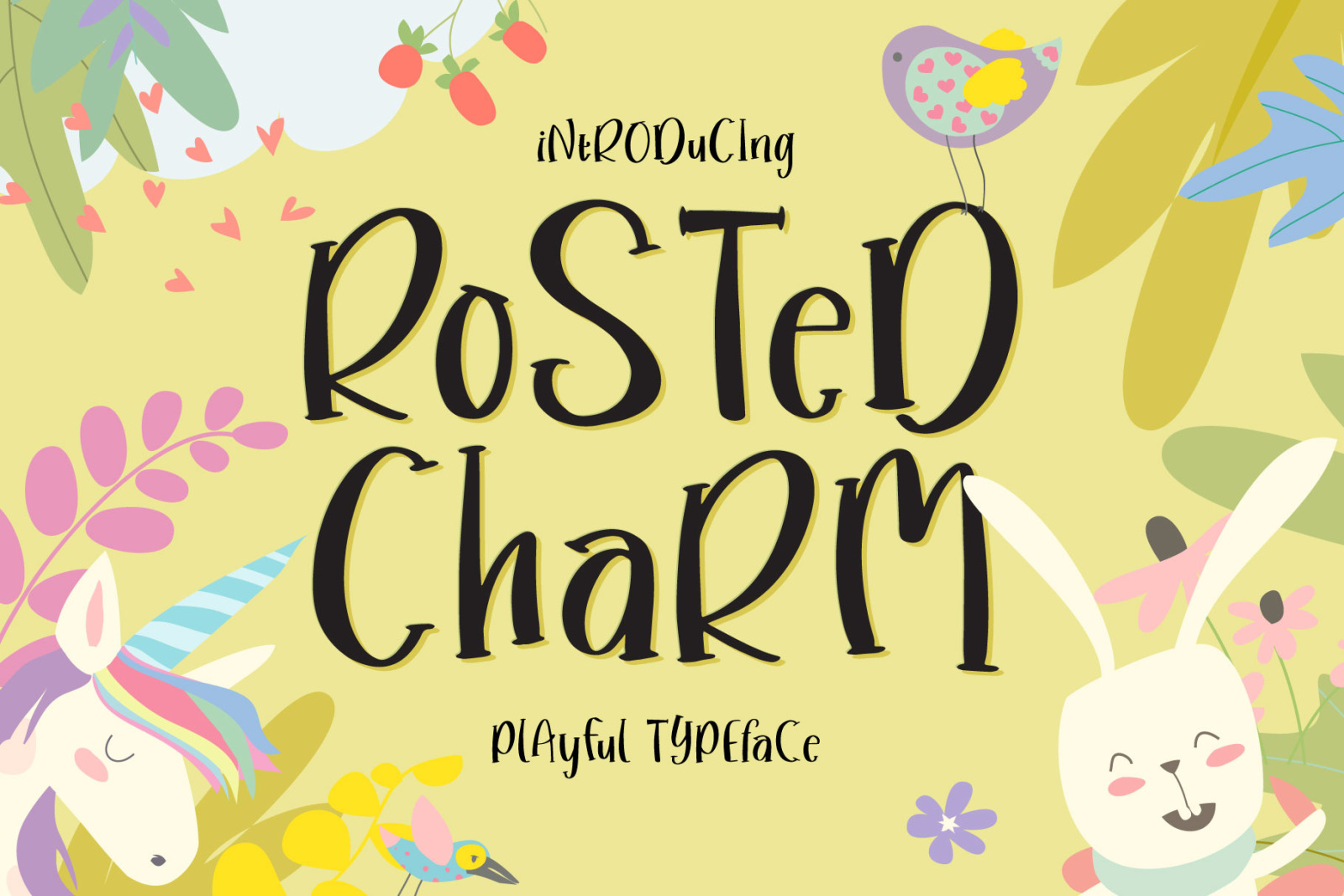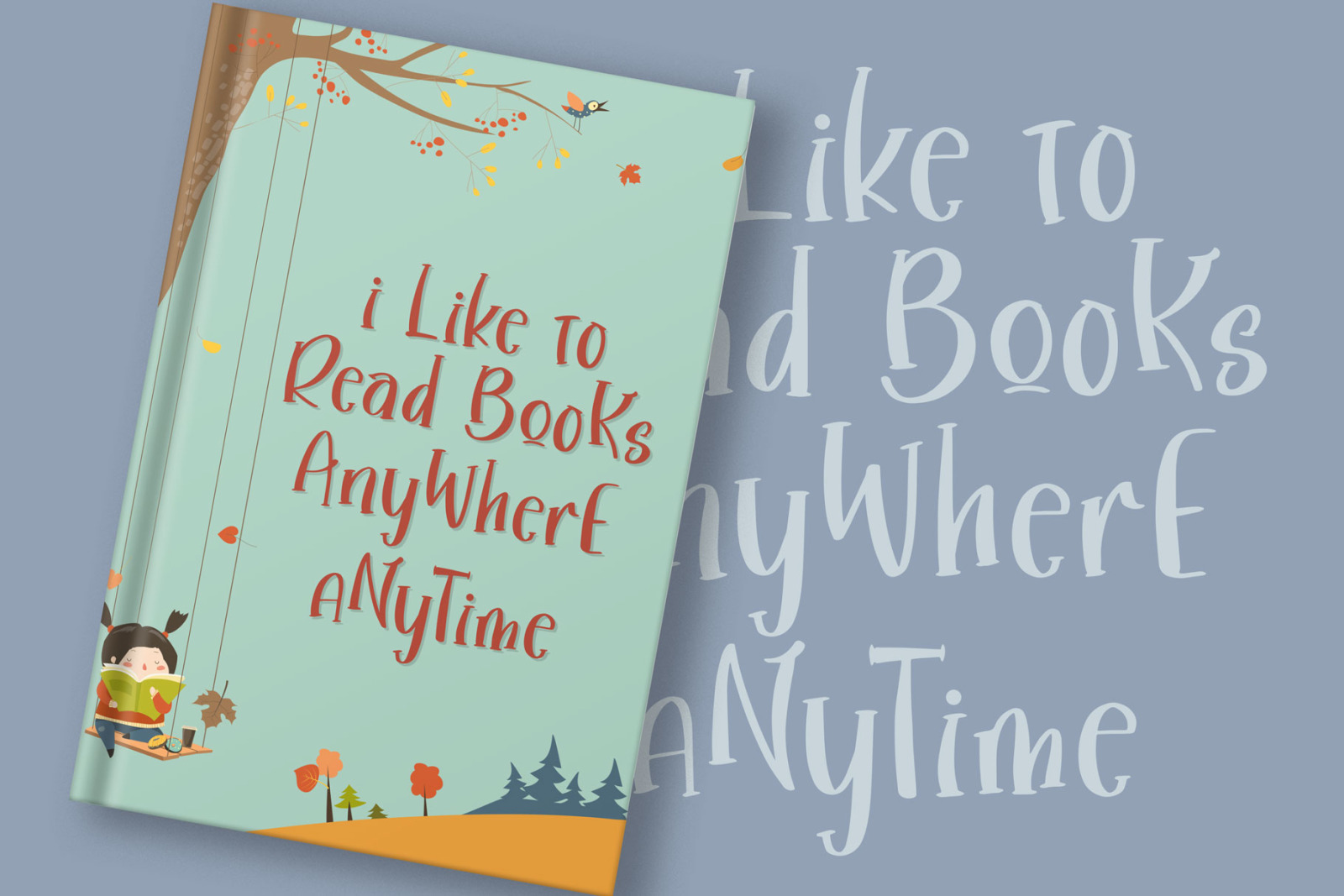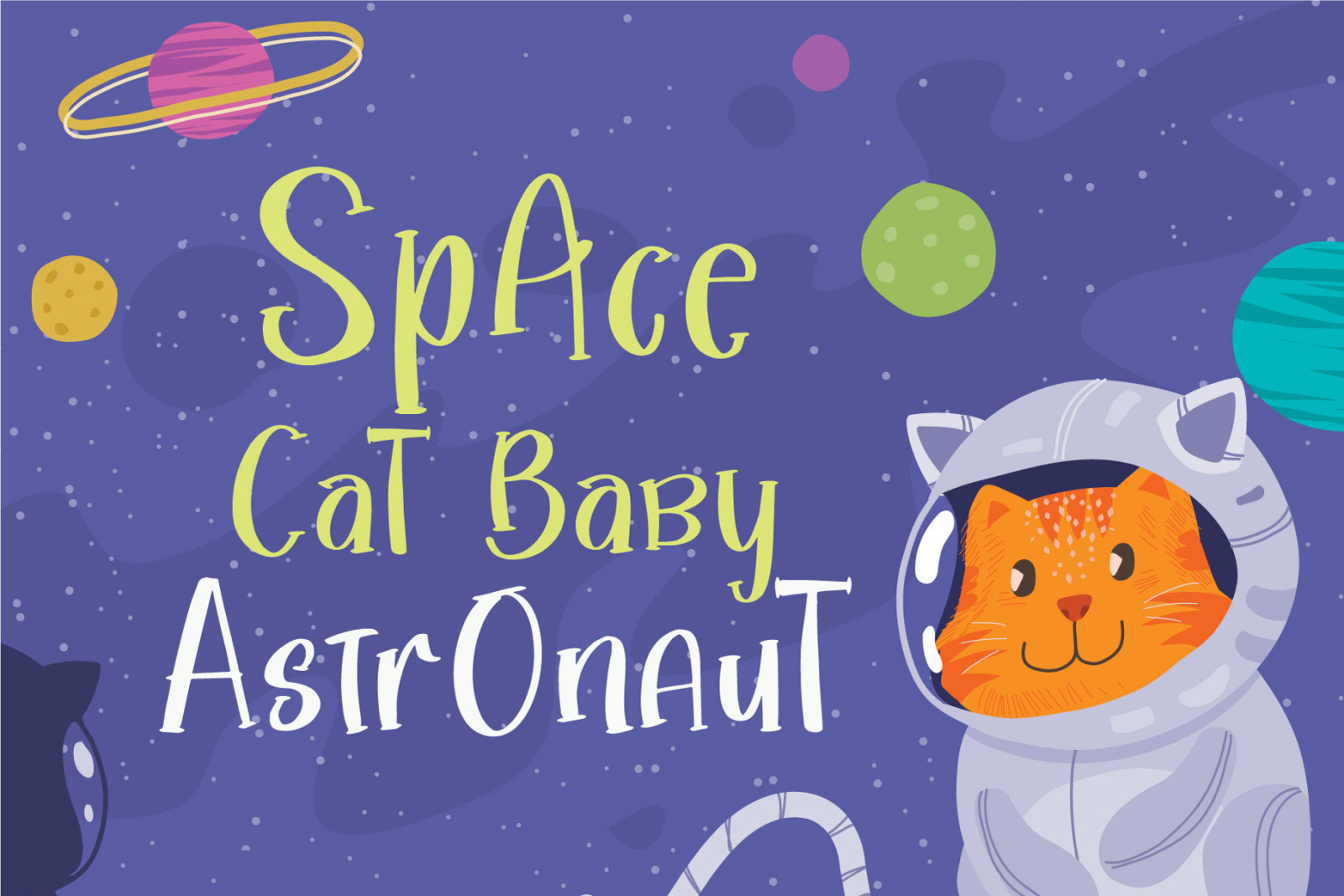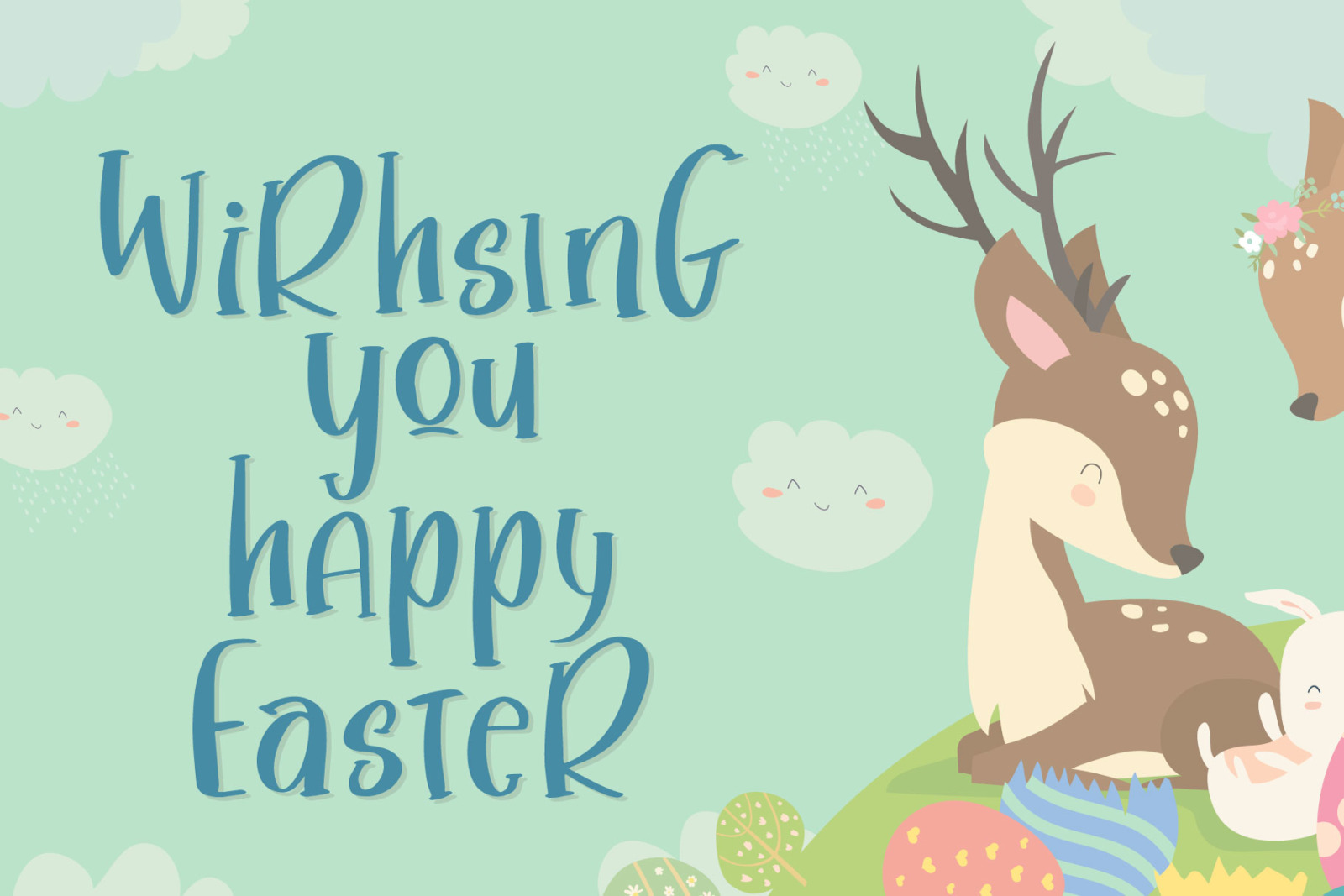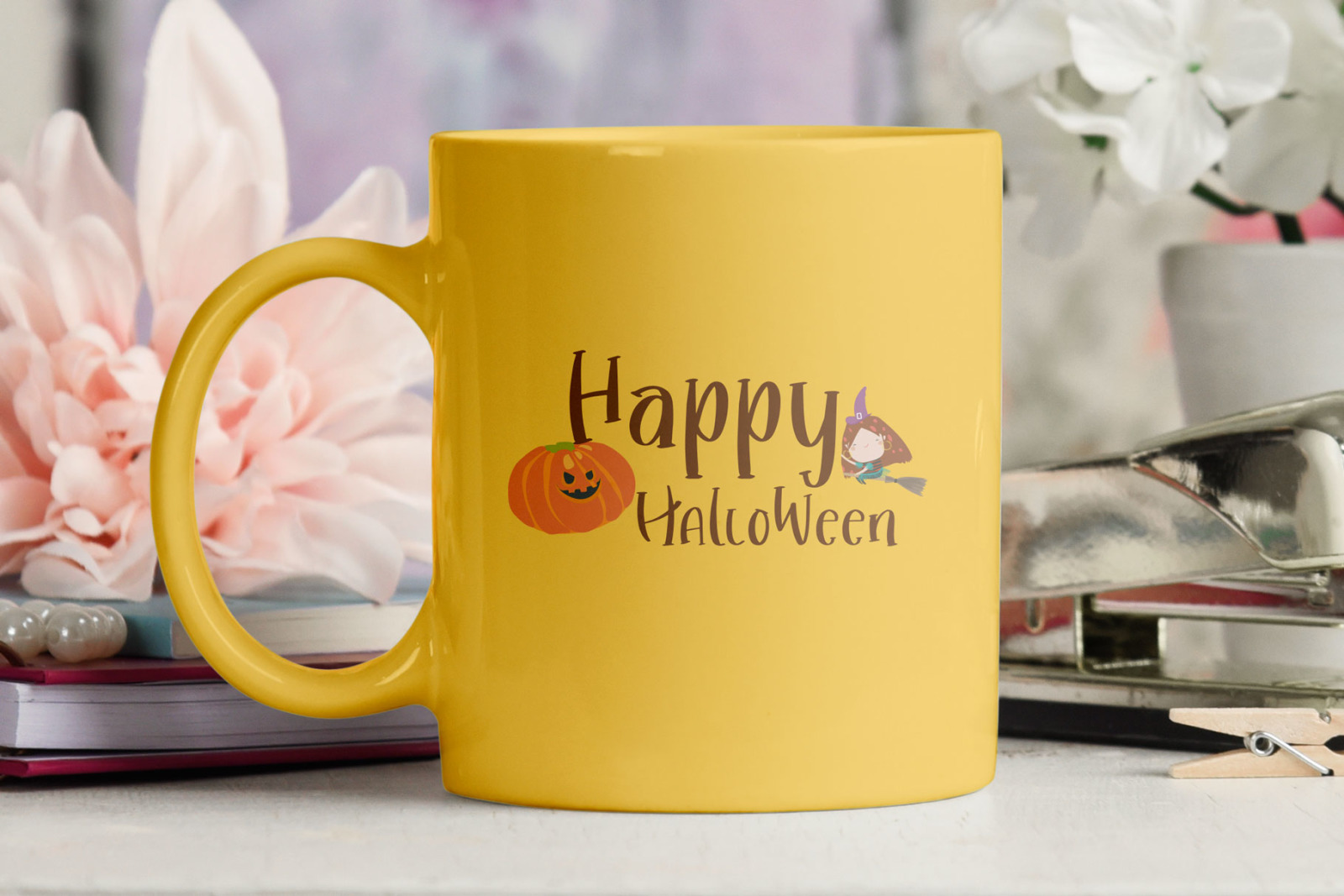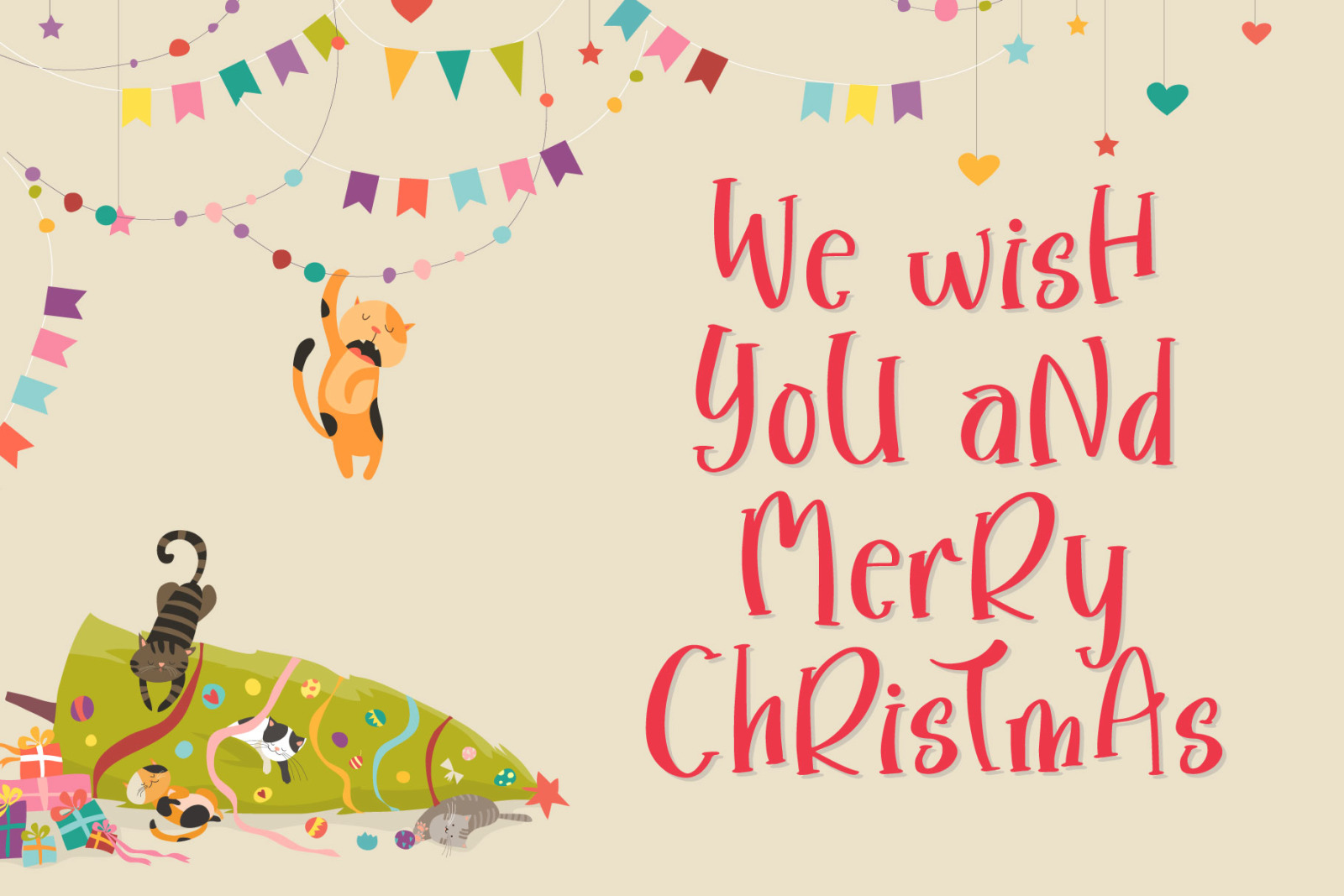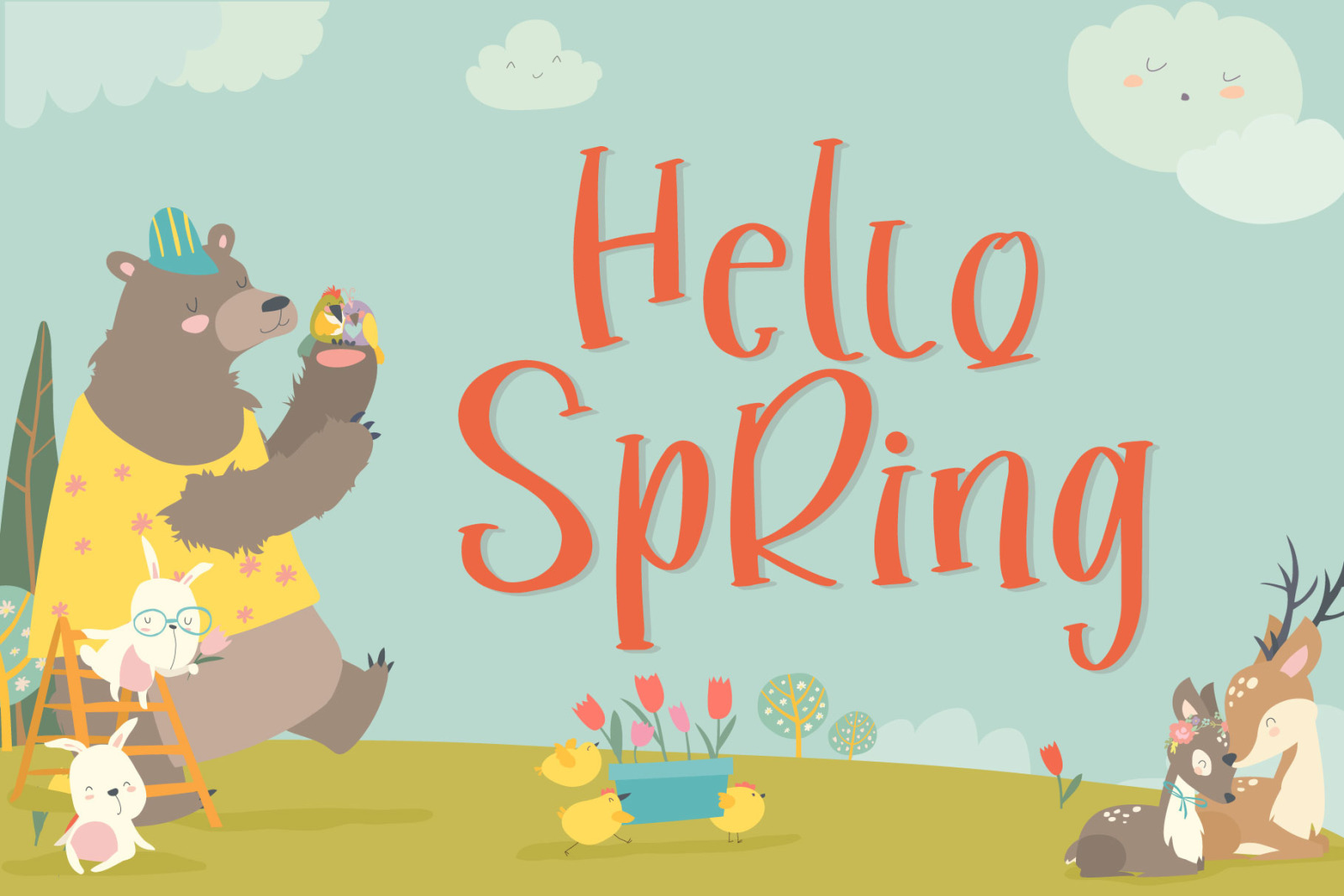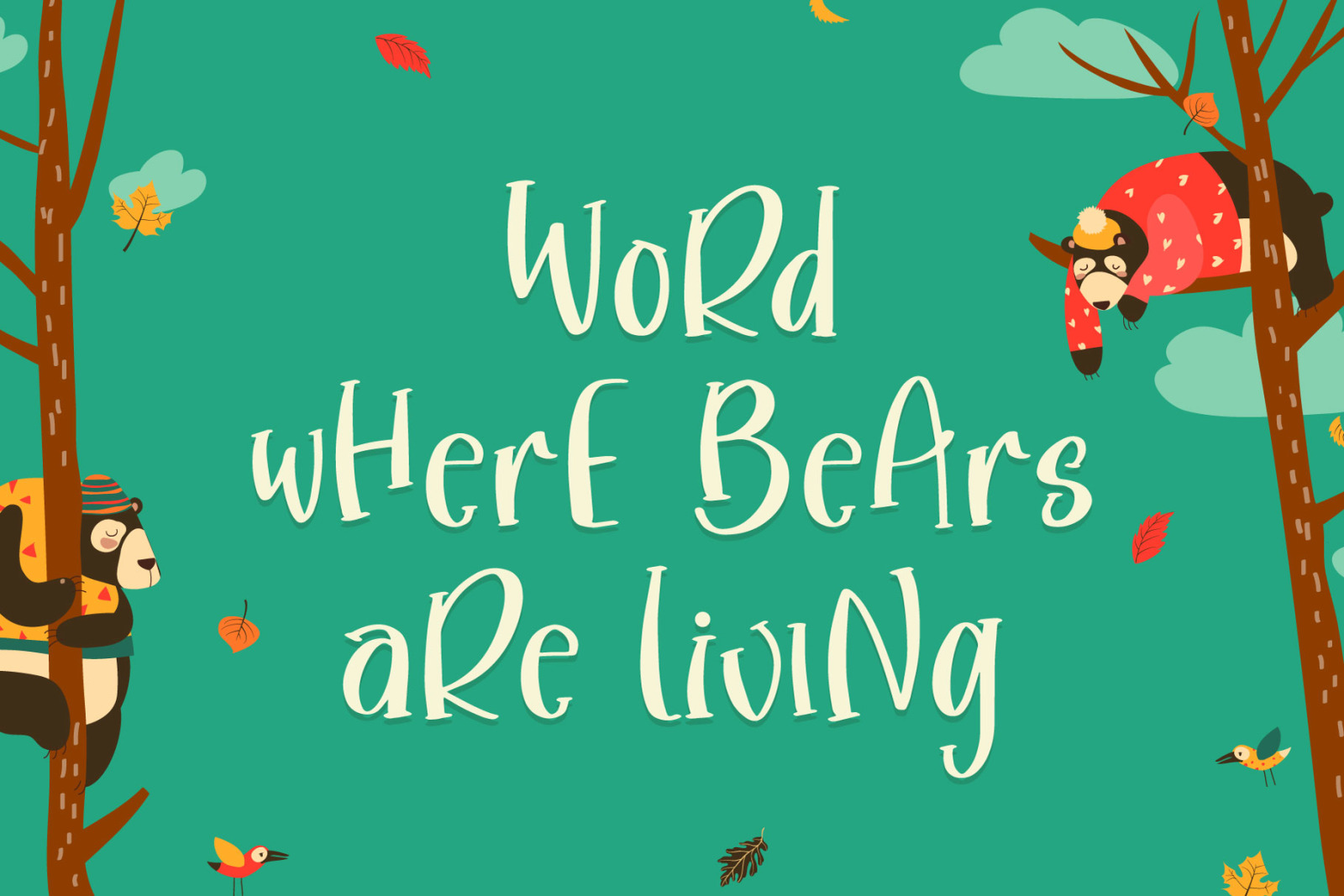
Rosted Charm Font
Rosted Charm fis a fun and charming display font. It’s simple and friendly style makes this design incredibly versatile, fitting a wide variety of creative ideas. Very suitable for children’s and cartoon design concepts.
A-Z Character Set
Numerals & Punctuations (OpenType Standard)
Stylistic Alternates
Multilingual
Ligatures